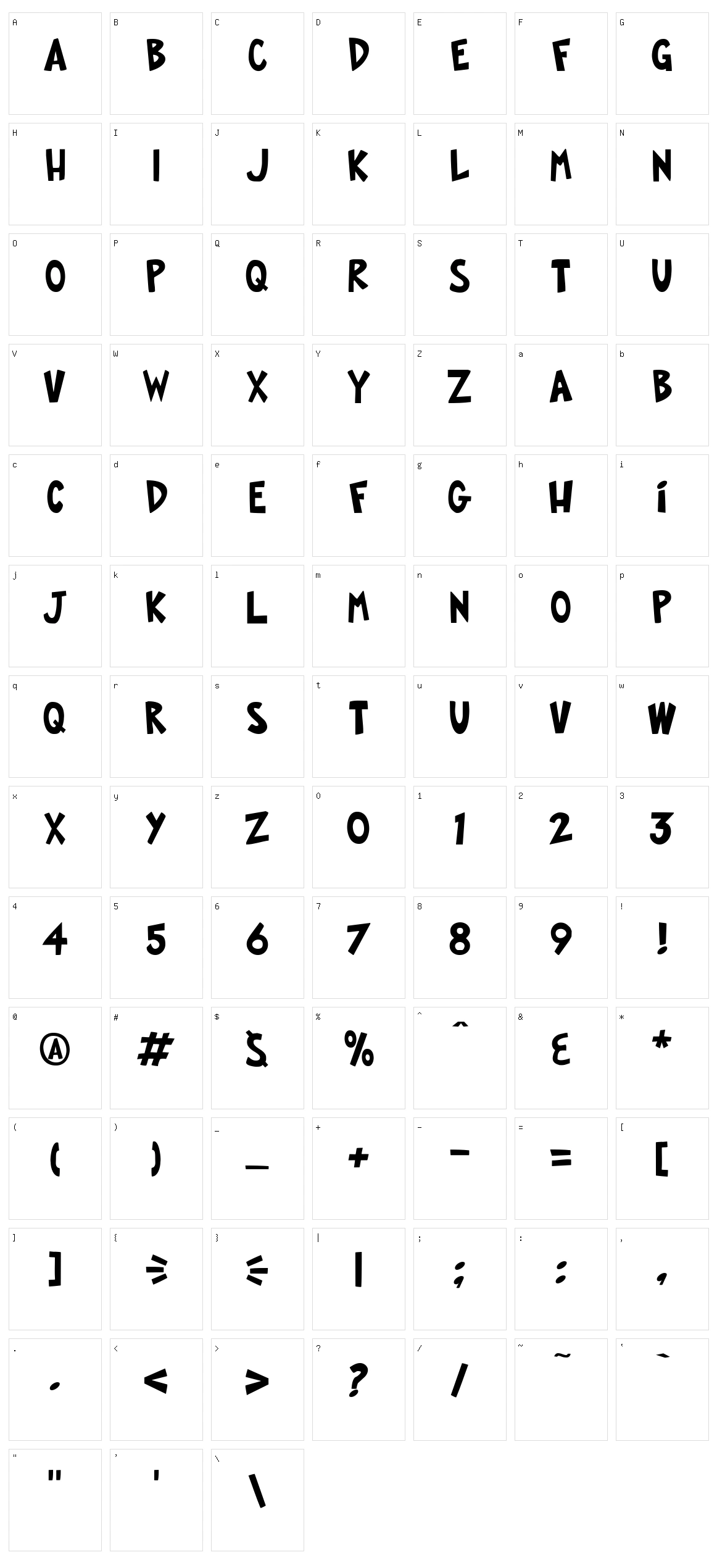
The free font FOP Title Style is carefully designed by Aryel Filipe, showcasing a thoughtful balance of creativity and usability and falls under the Cartoon font style. When you download the ZIP file, it contains only 18.76 KB of font files, making it lightweight and quick to download. Please review the license details below to understand permitted usage and distribution rights. If license information is not available, we recommend using this font for personal projects only or contacting the author directly for commercial usage permissions.